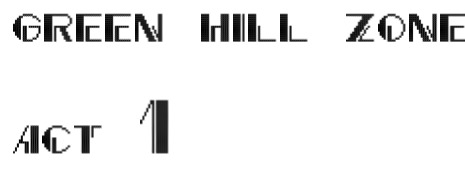
I made cyrillic letters looks like a Sonik Super Yozhik 2 game (Sonic 2 RUS version)
You added Arabic (not an entire language) and the Omega Mart logo